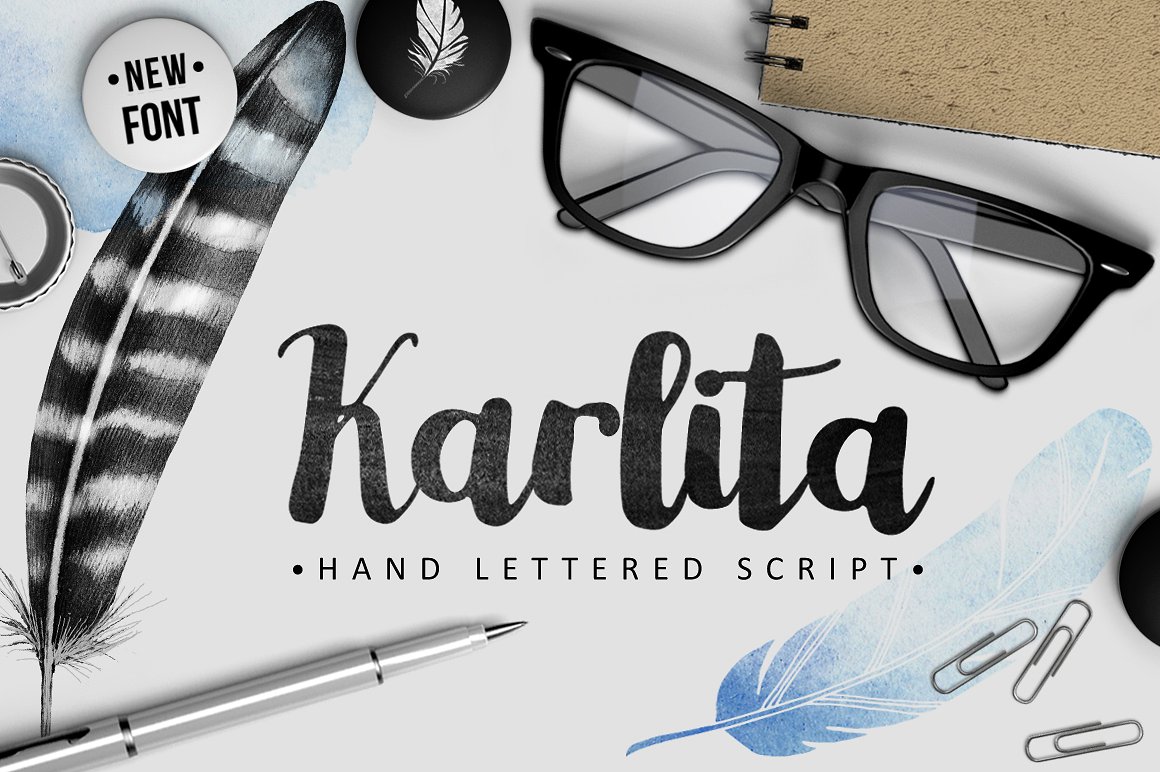
Karlita Script
Karlita Script Font
I would like to introduce you Karlita – the elegant handlettered script. Karlita will give to your work artistic handmade feel. Great for various kinds of your projects – wedding announcements, greeting cards, invitations, branding, logos etc. Include uppercase, lowercase and all basic English characters. Enjoy Karlita!